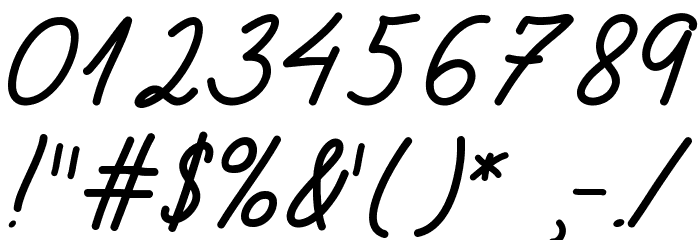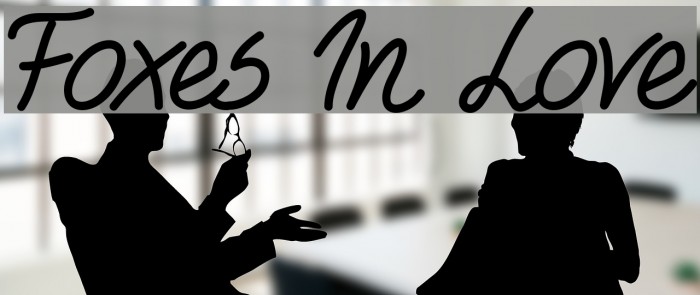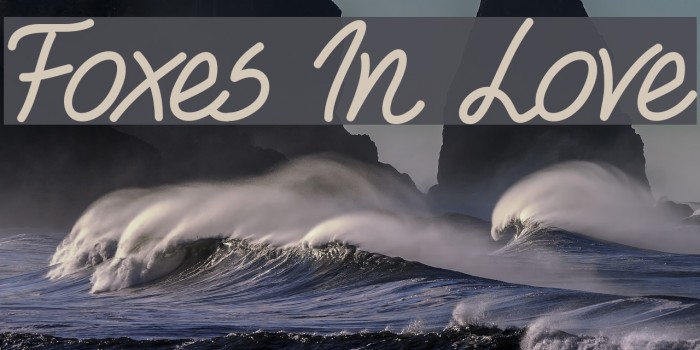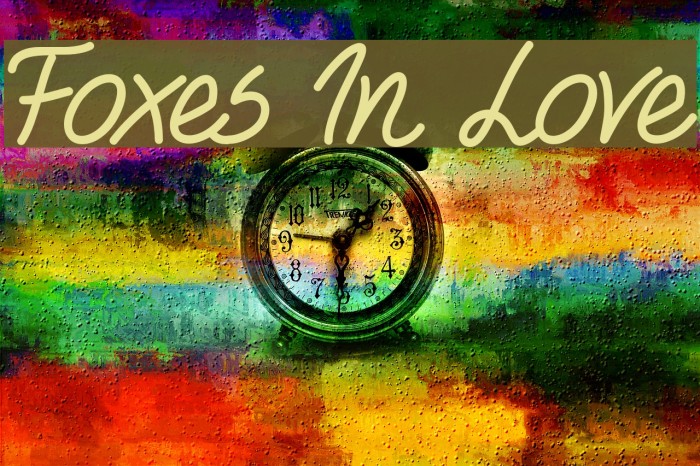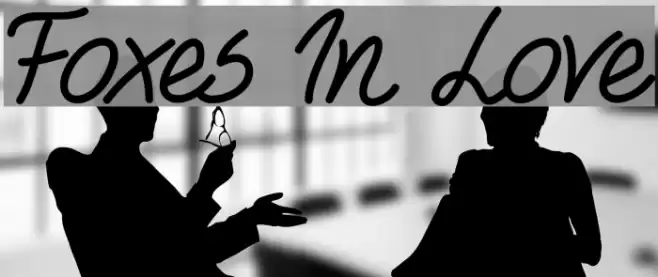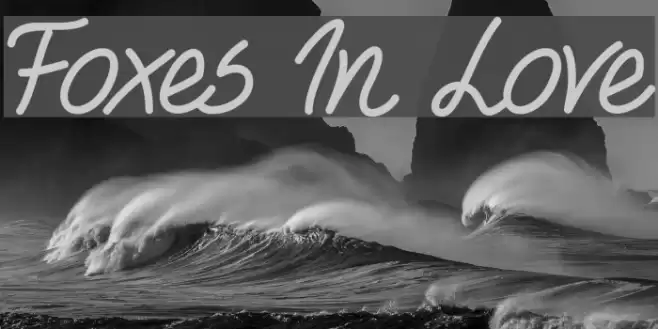
Foxes In Love Font
This font features a playful and casual handwritten style, characterized by its fluid and connected letterforms. The uppercase letters are slightly slanted, giving a dynamic and lively appearance, while the lowercase letters maintain a consistent flow with occasional loops and curves. The numerals are clear and legible, matching the overall informal aesthetic. Special characters are integrated seamlessly, maintaining the whimsical and friendly tone. The strokes are moderately thick, providing a balanced contrast that enhances readability without sacrificing the font's unique personality.
A playful and casual handwritten font with fluid, connected letterforms.
- Proposed Projects: Ideal for greeting cards, personal invitations, playful branding, and social media graphics.
- Overall Style: Casual
- Use Case: Logos, Headlines, Invitations